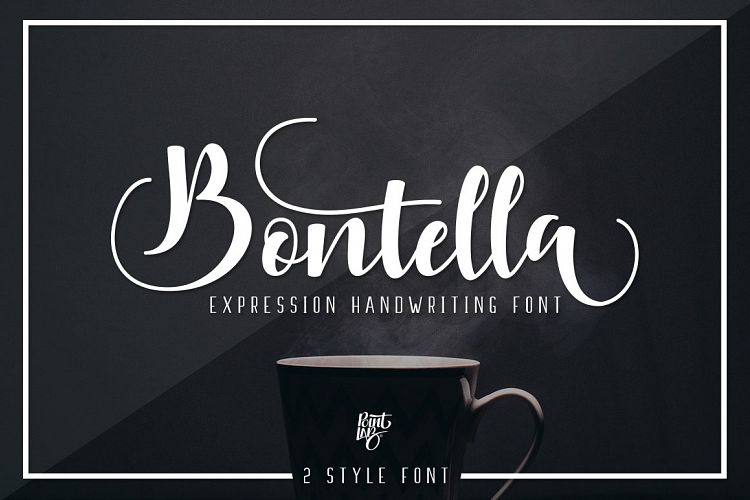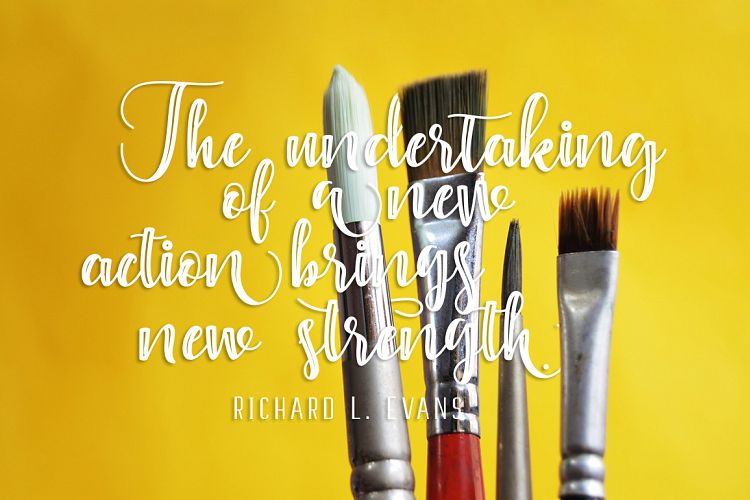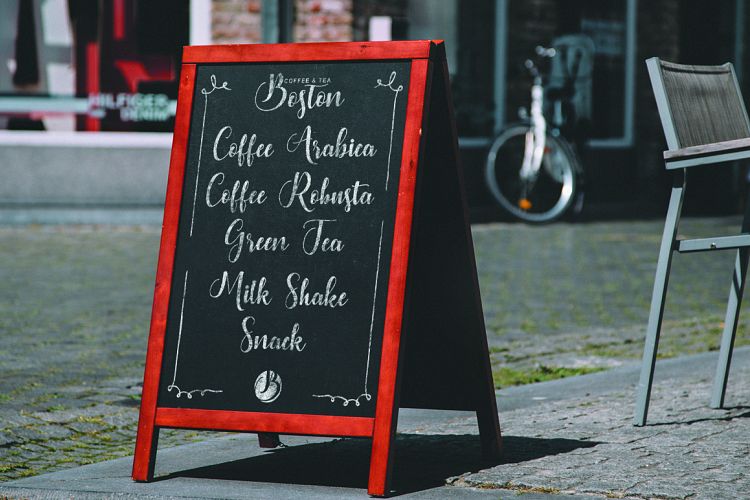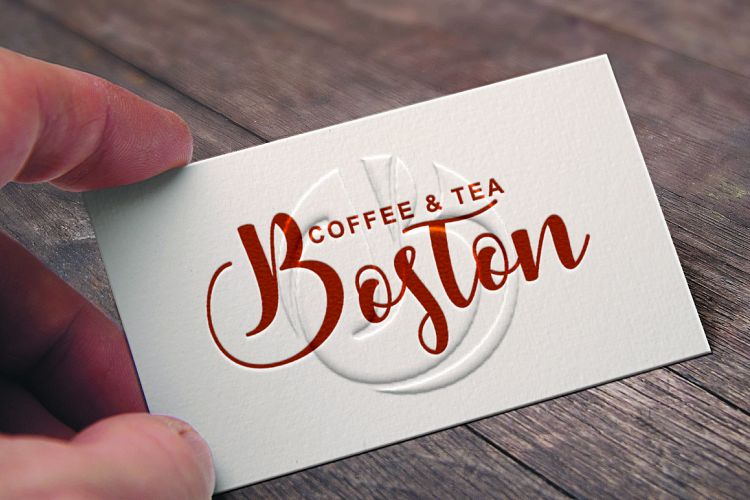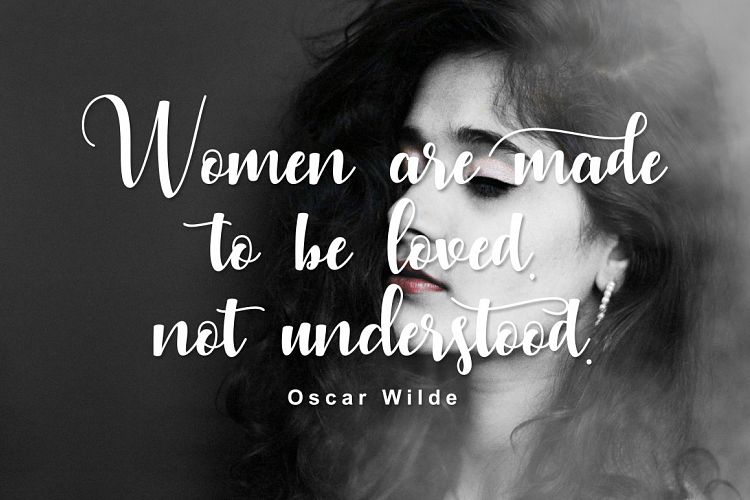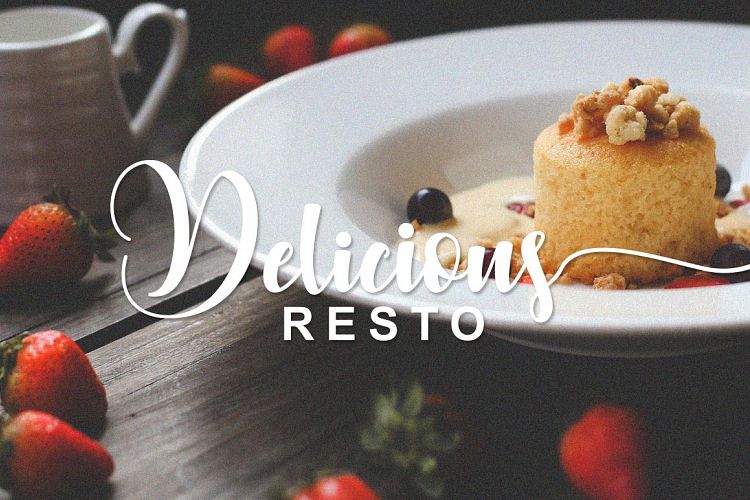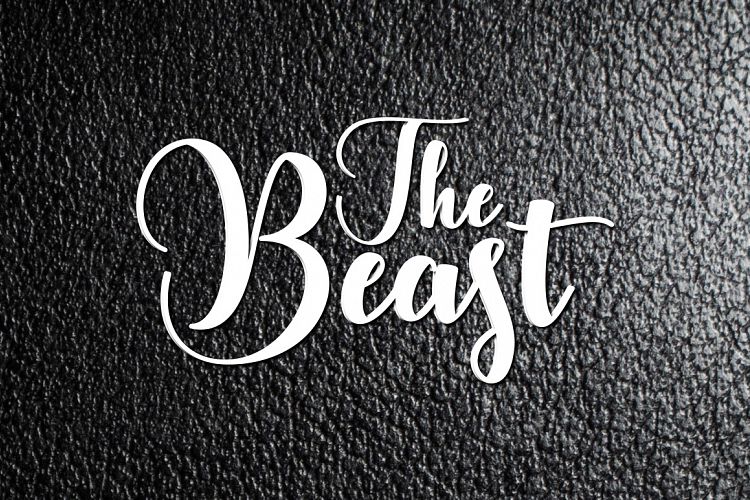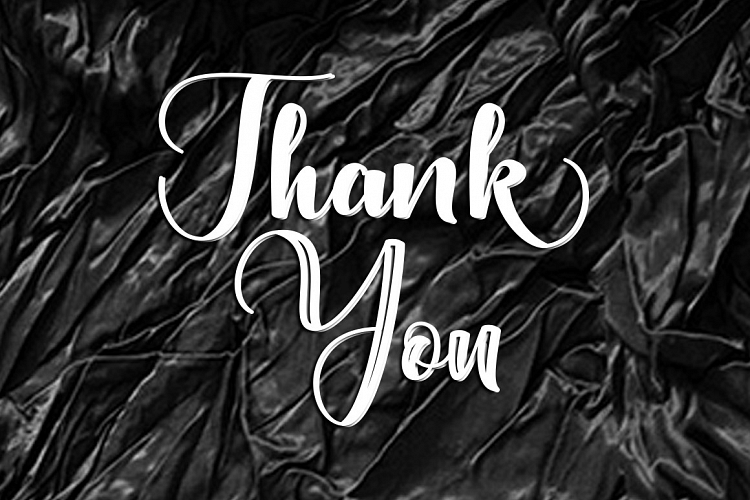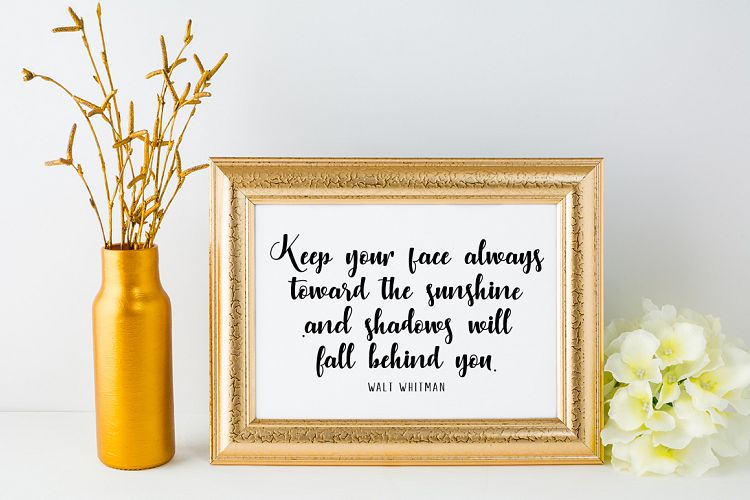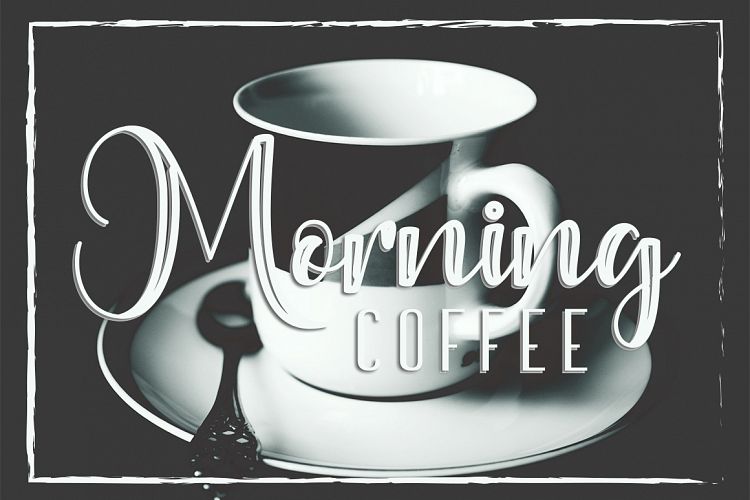
Bontella Font
About Bontella Font
Bontella is a fresh and modern script font duo.
Bontella Script
Bontella Script Extra
The Bontella script font features 420+ unique glyphs. The alternate characters are easily accessible with PUA encoding, meaning you can use the font in any type of software. The font is suitable for digital, print & die-cutting.